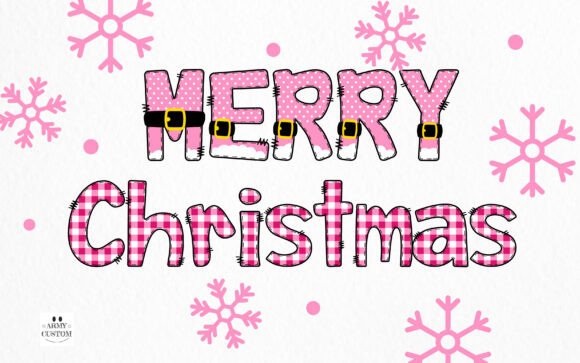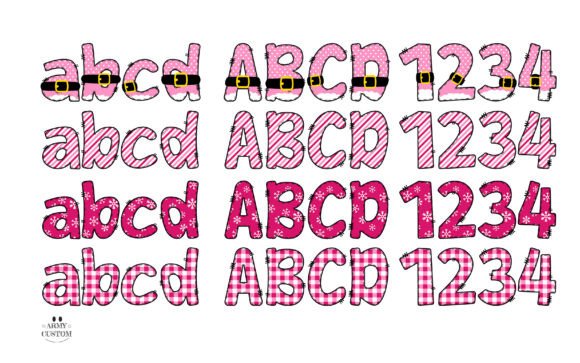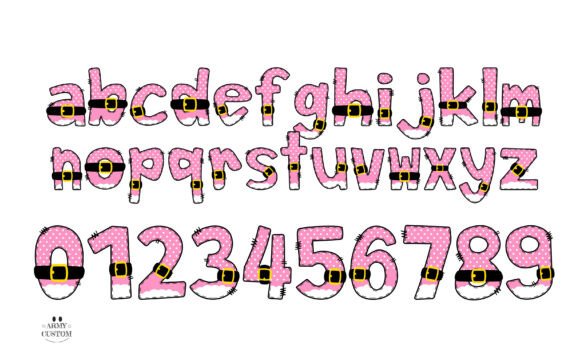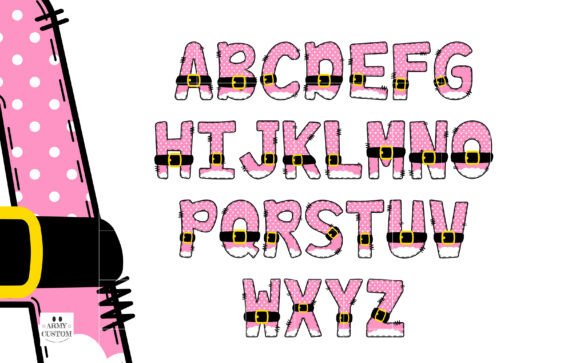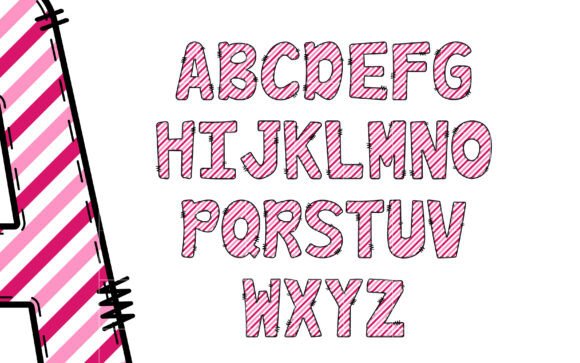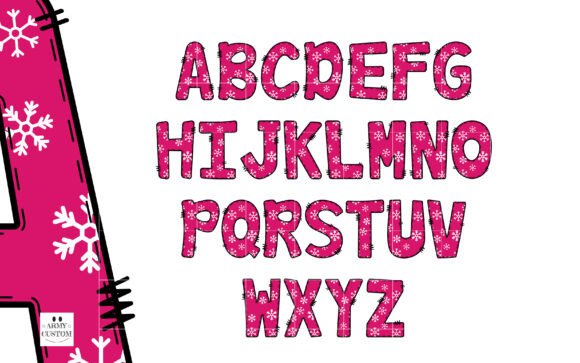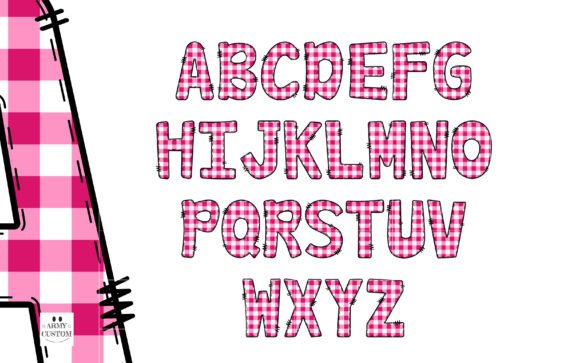
Christmas Bundle Font
Imbued with a sense of whimsy, this color font is a playful addition to your holiday design toolkit. Its jovial style makes it an ideal choice for creating vibrant holiday decorations or adding a dash of merriment to any design project.
With the Christmas Pink Bundle Font, every letter spelled out becomes a joyous celebration, inspired by the adorable antics of Santa’s helpers. Indulge in the spirit of the holiday season with this charming, elfish font.